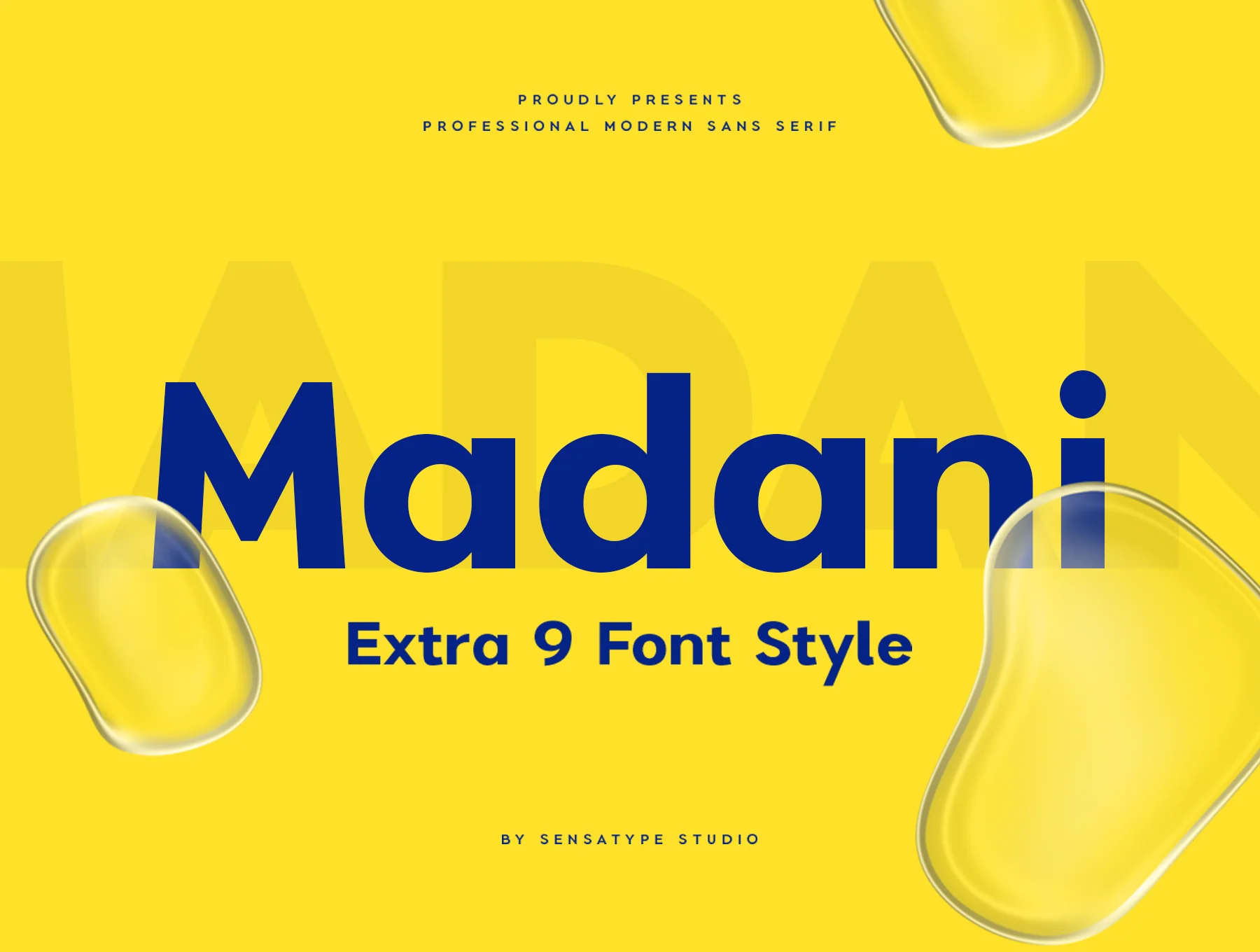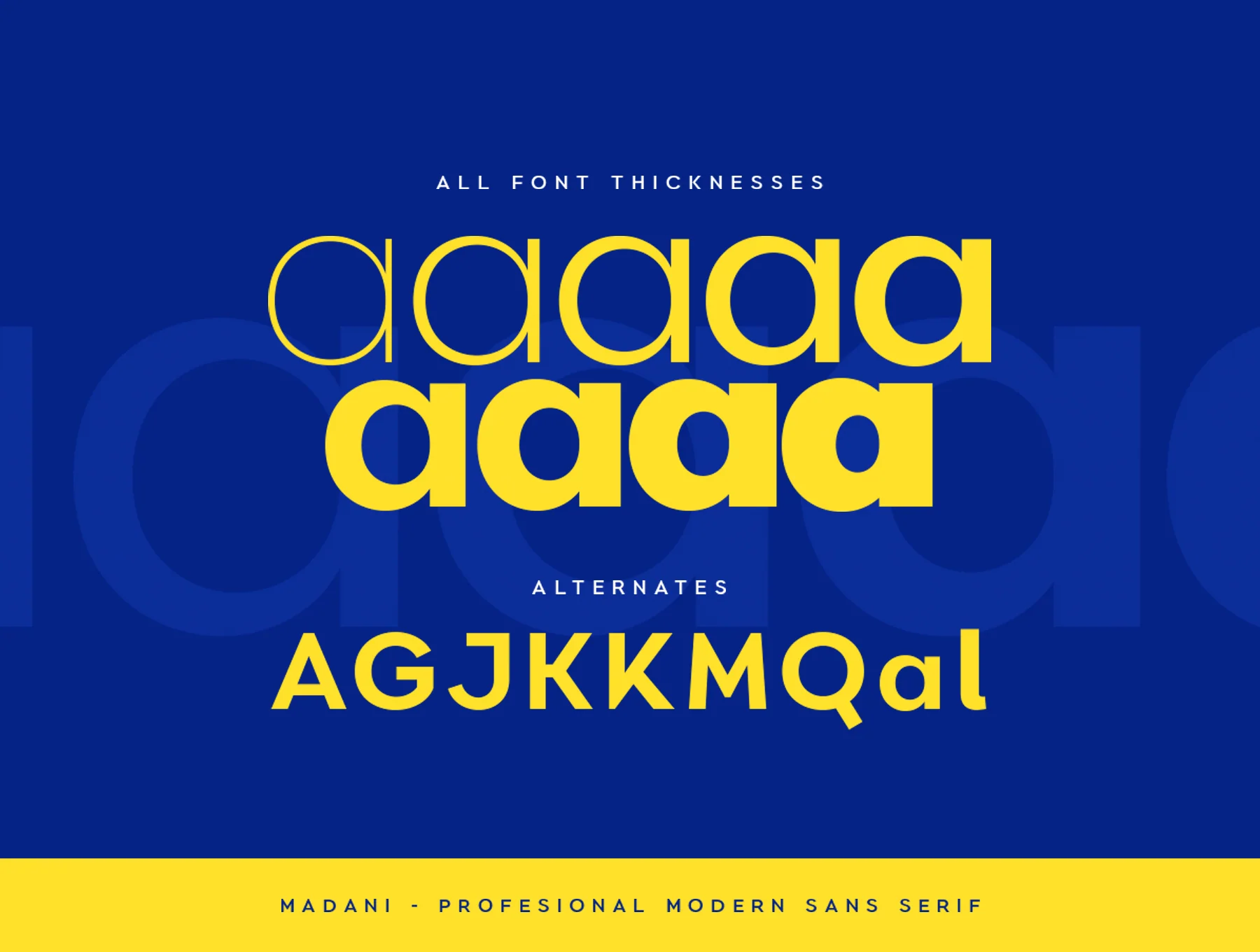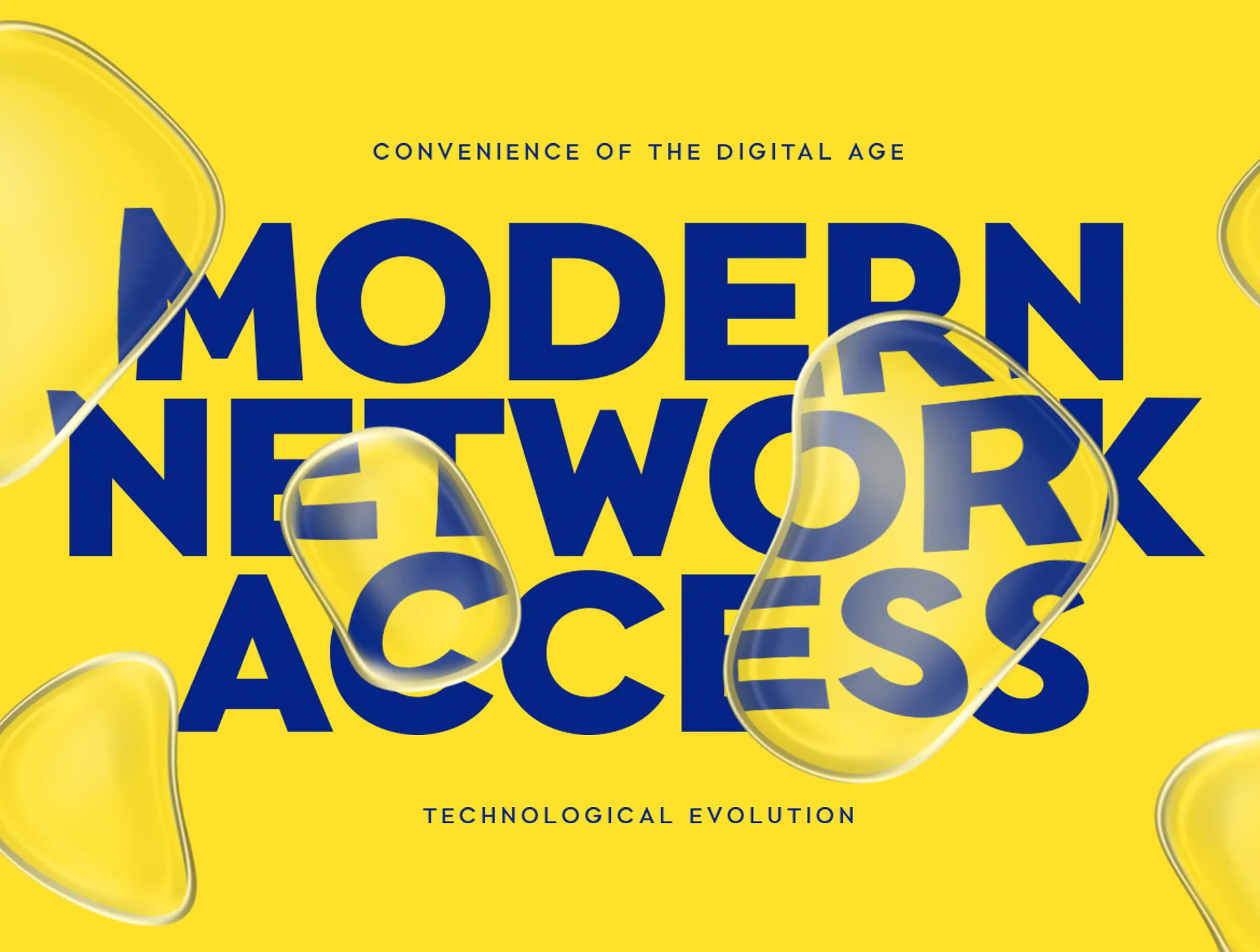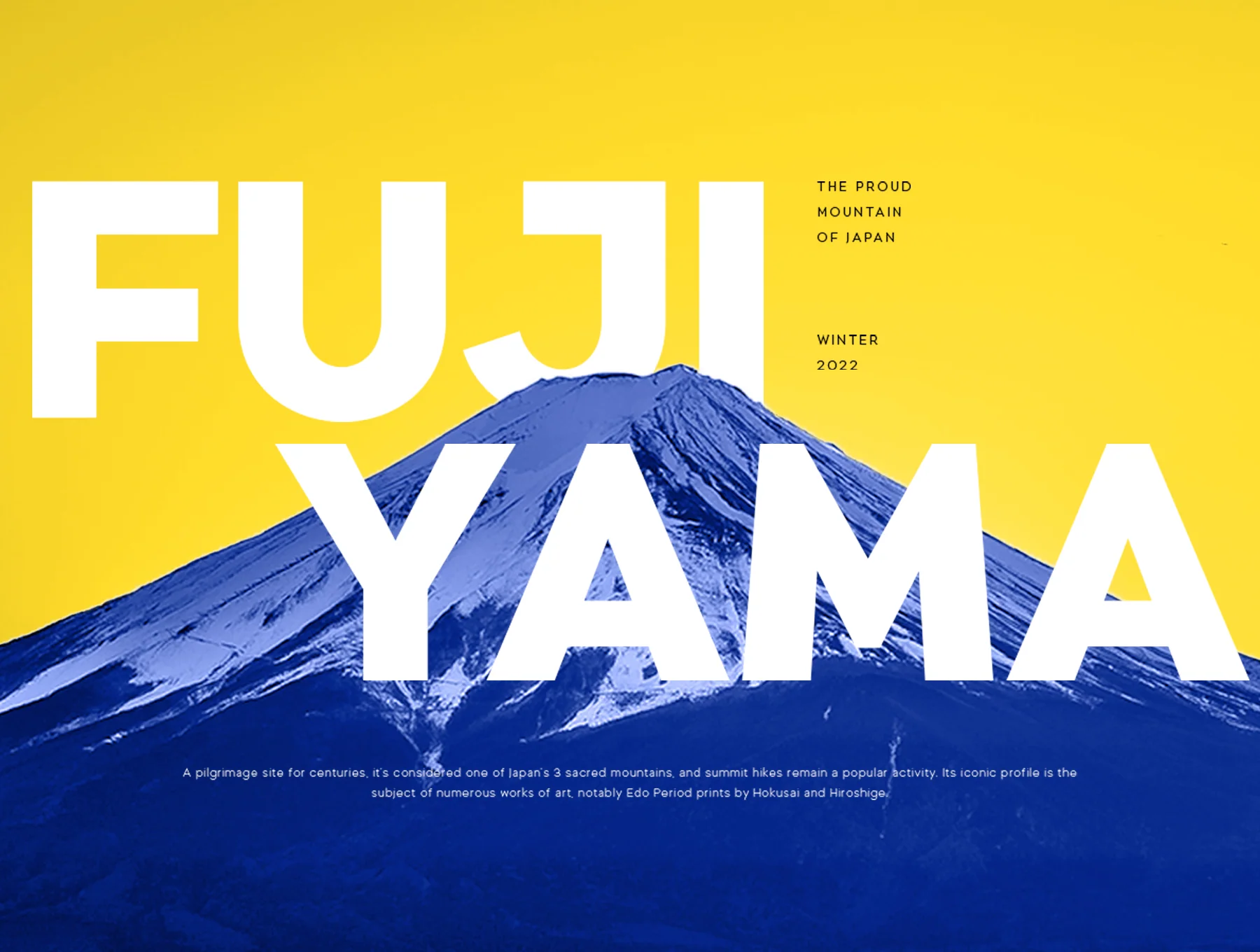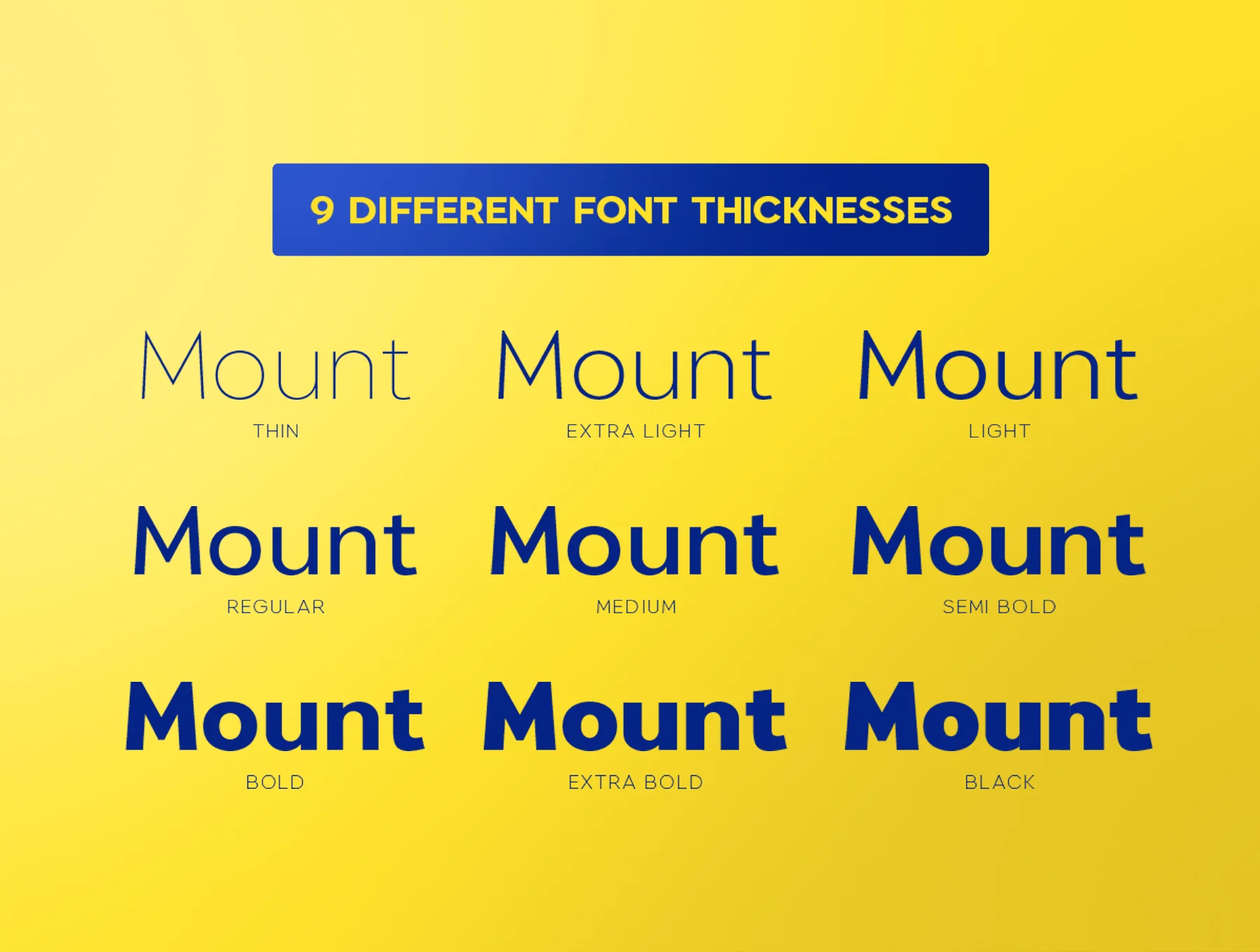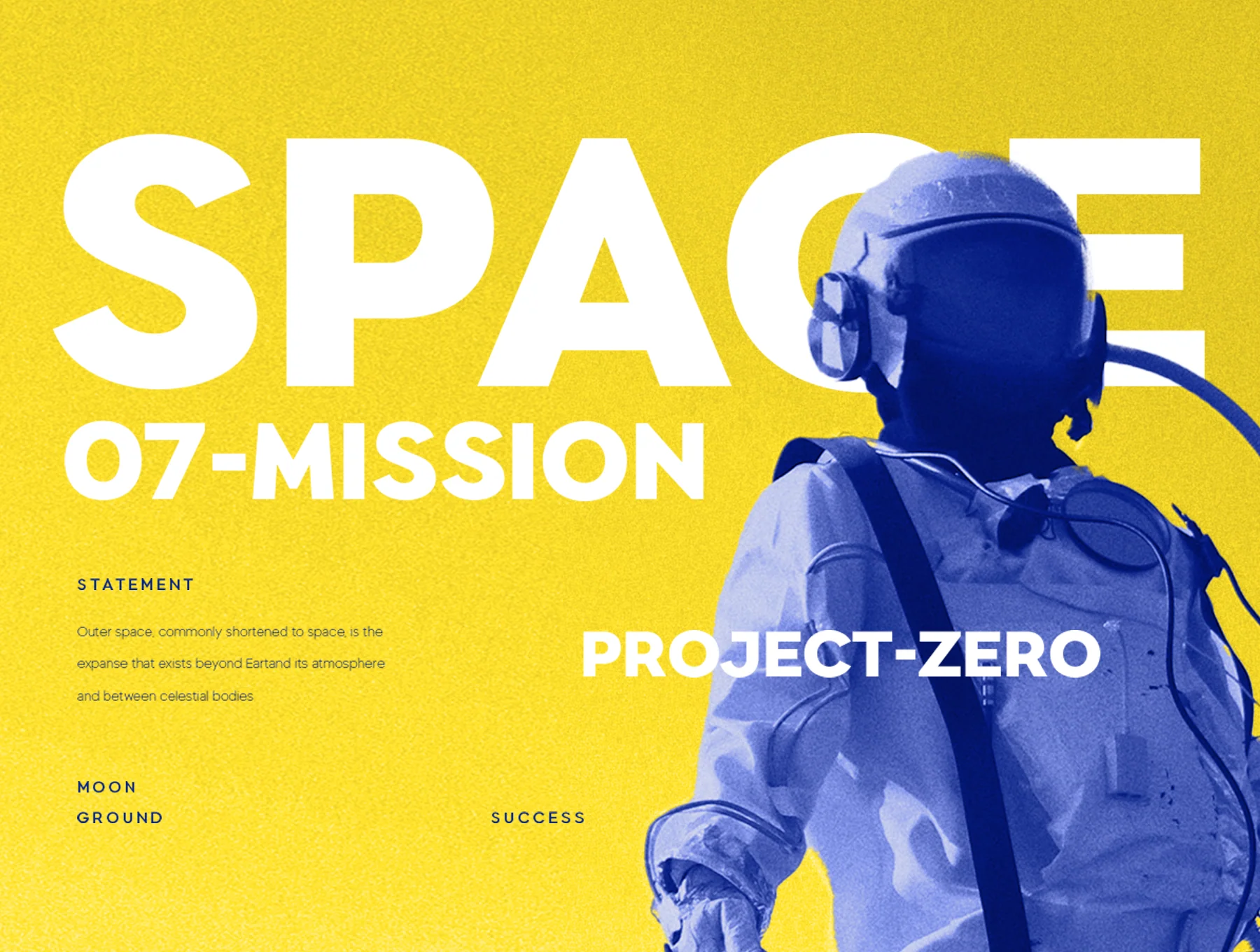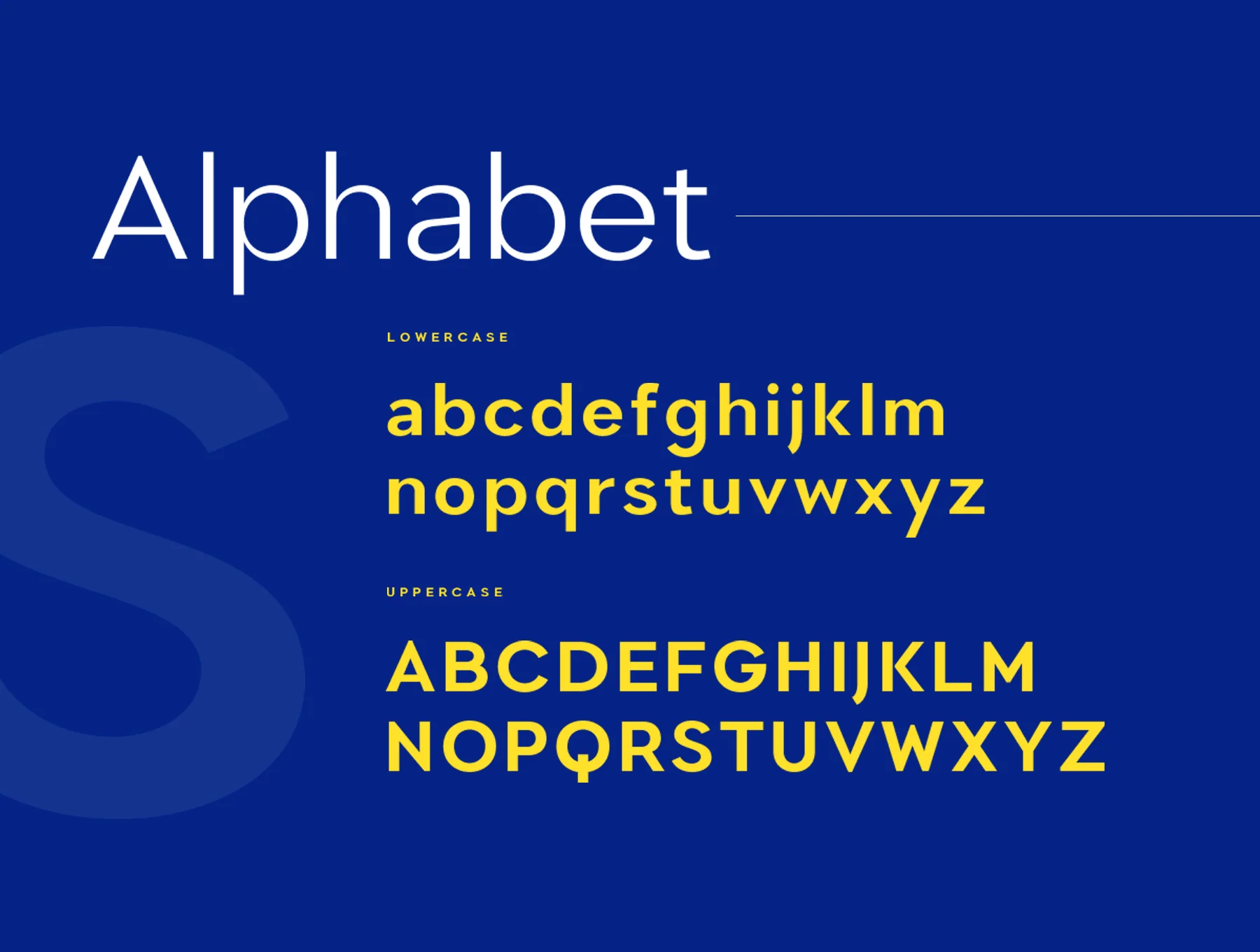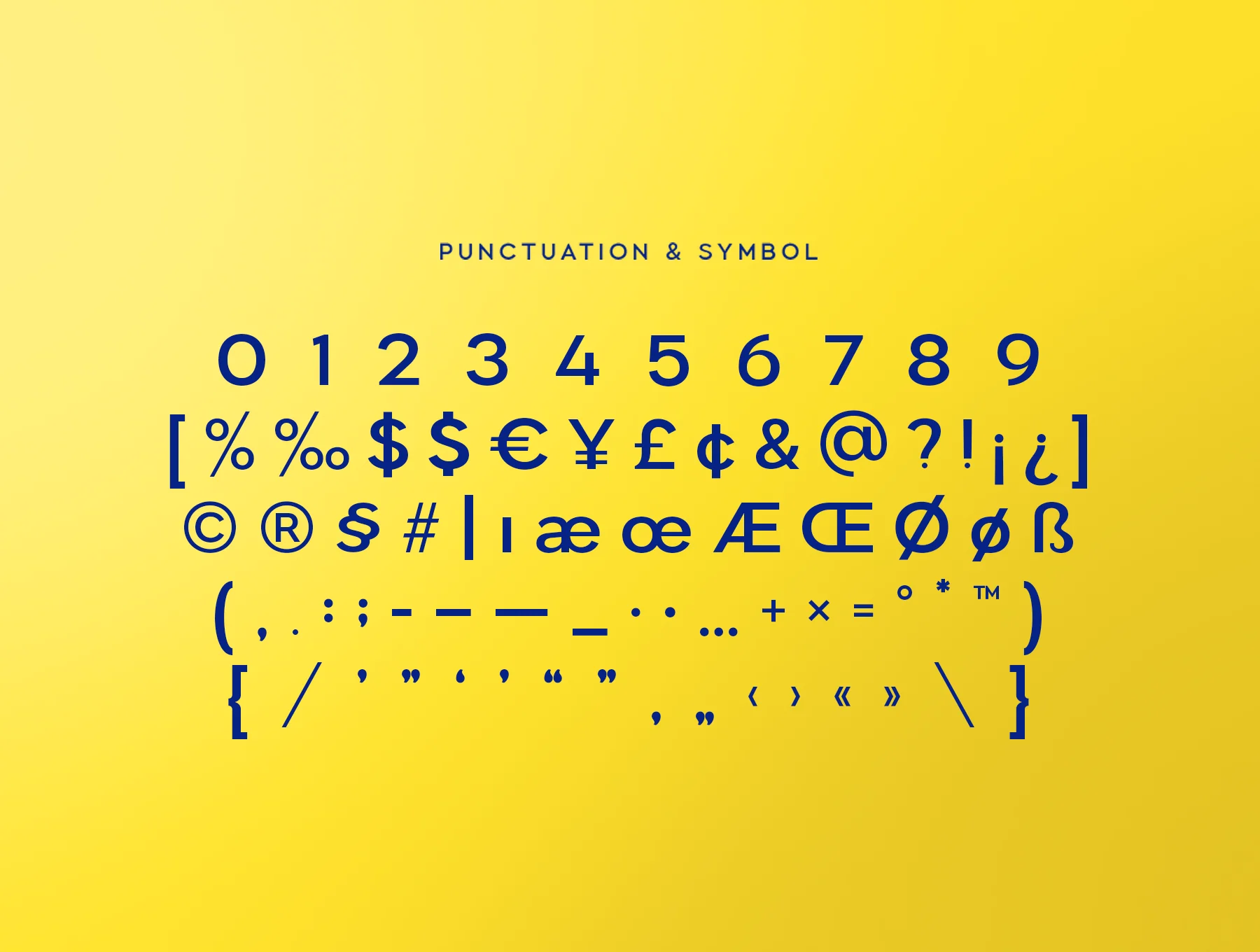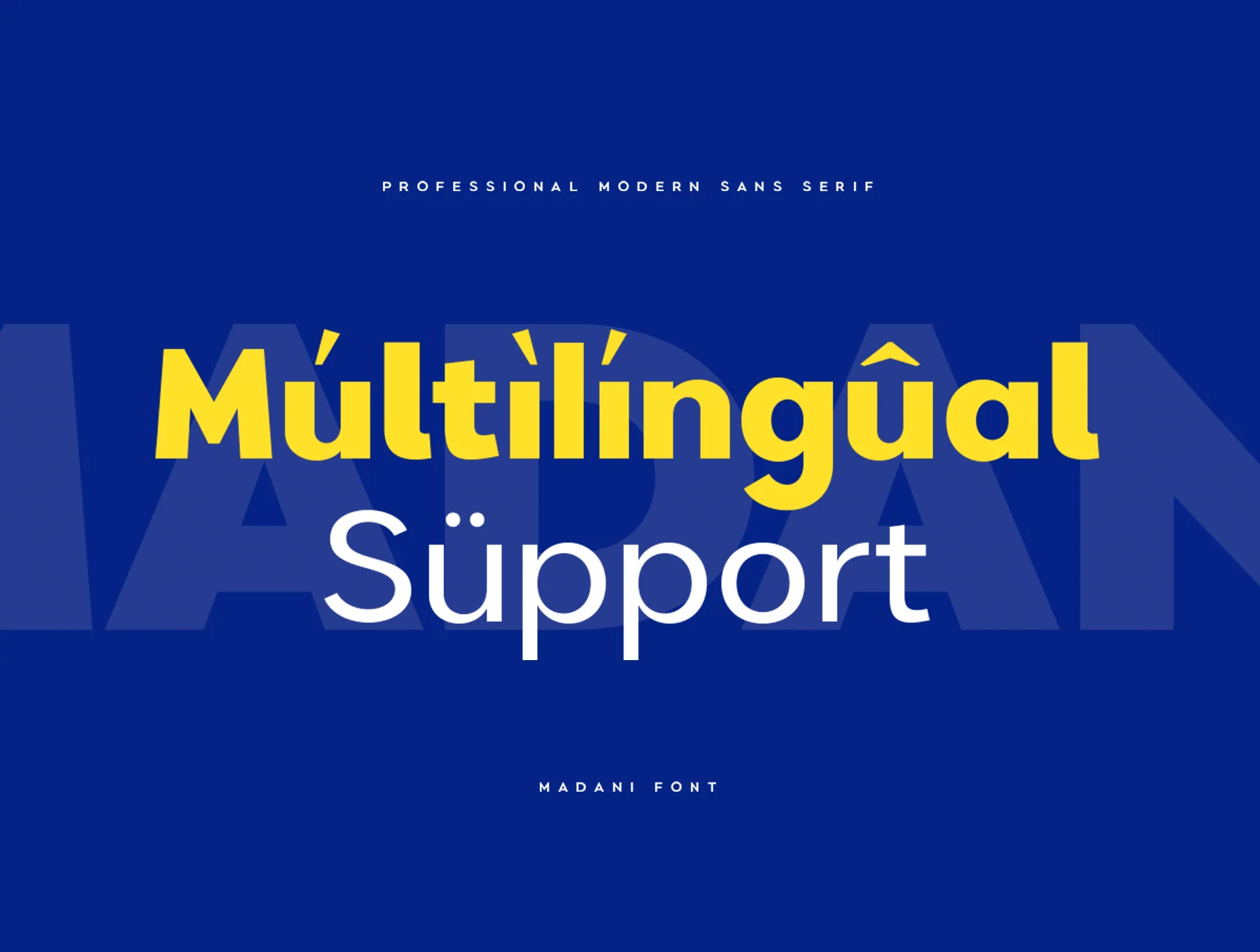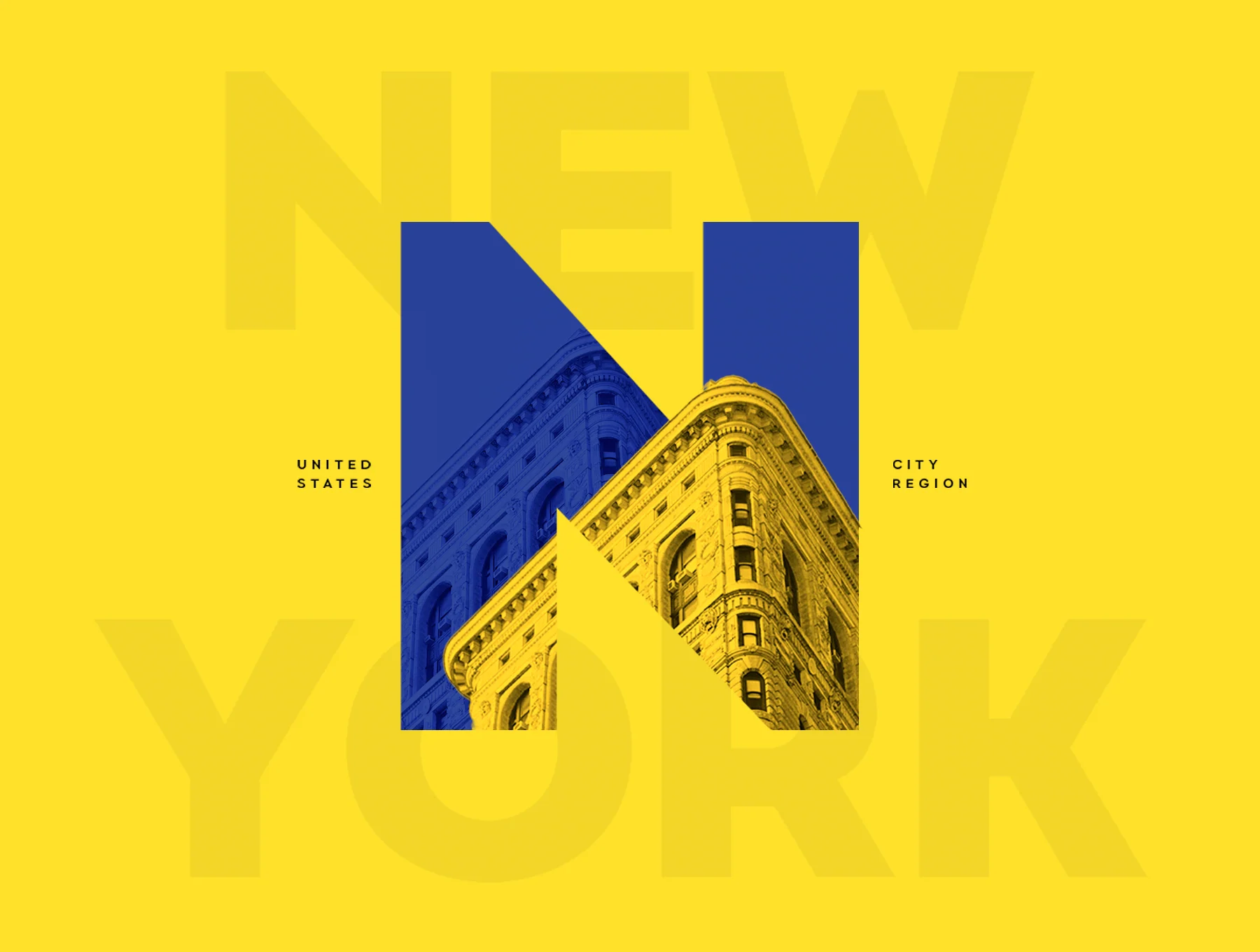
Madani Font Family
Madani is a sleek, contemporary sans serif font
Complete Madani font family: Thin to Black
A–Z character support
Capital and small letter styles
Madani is a sleek, professional sans serif font designed for branding, headlines, titles, and striking typography. With added alternate styles, it helps make designs more distinctive and memorable. Ideal for business, tech, action-focused, minimalist, and modern projects, it highlights your message with clean visual impact.